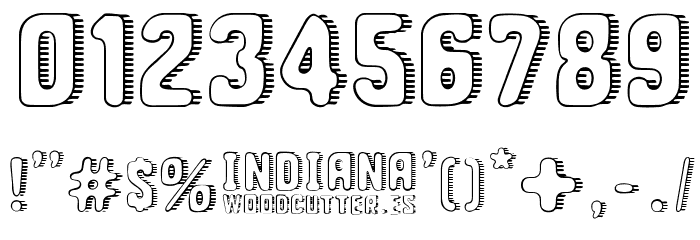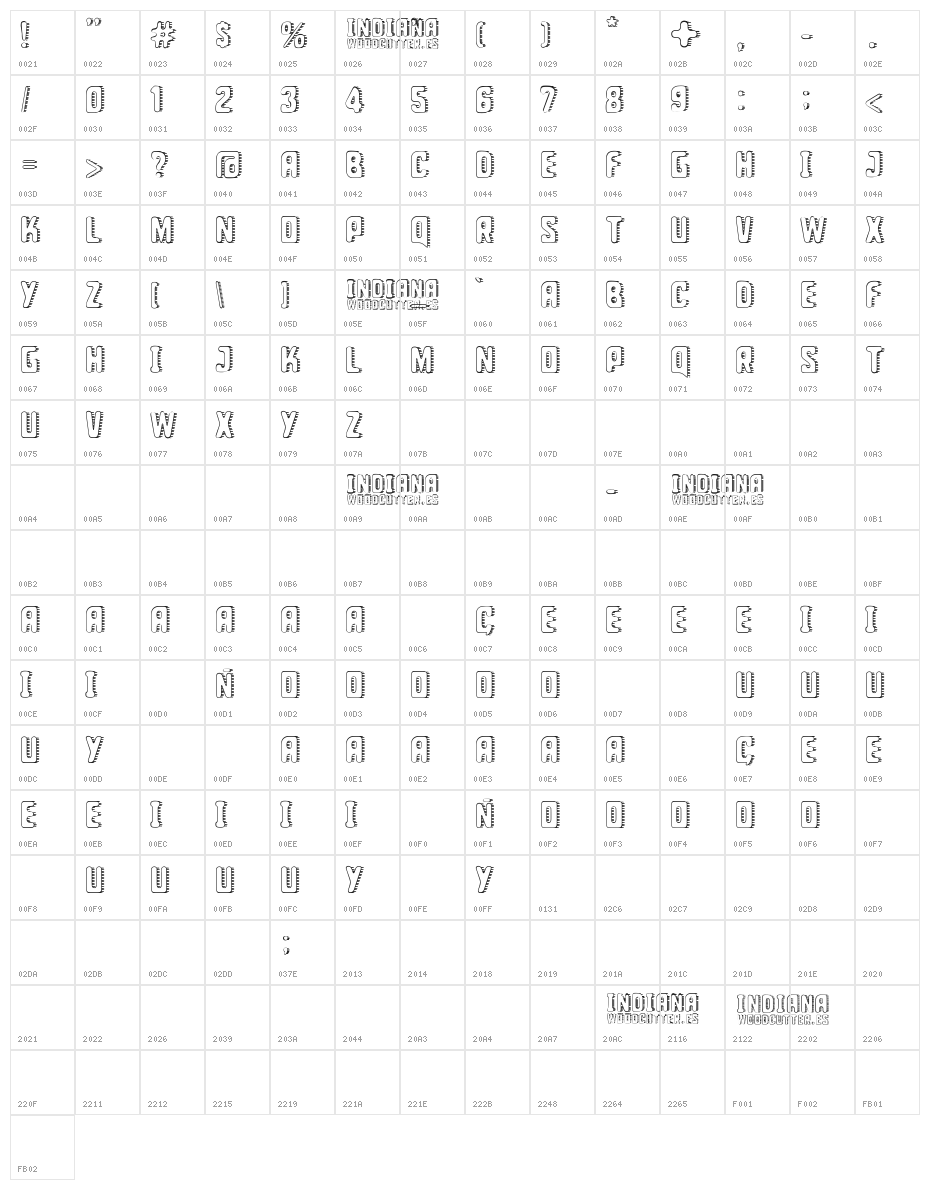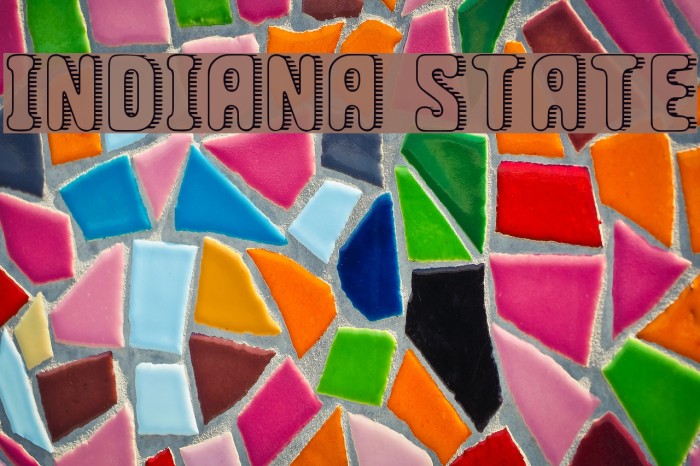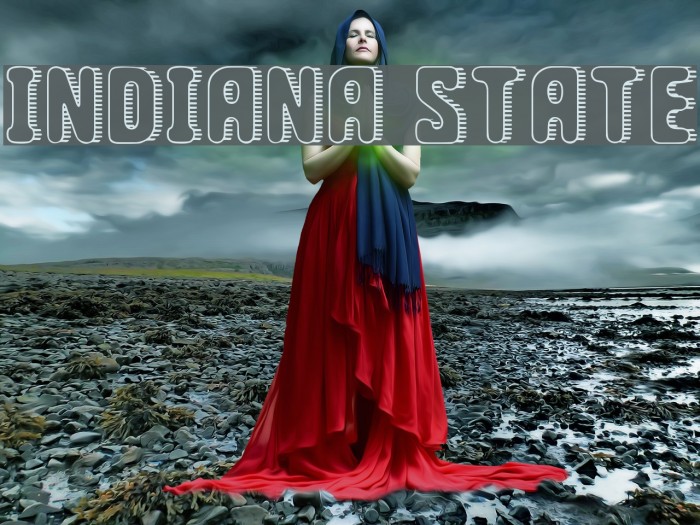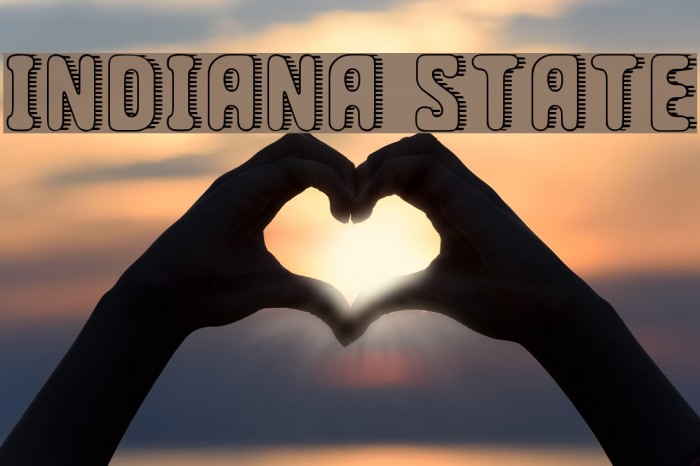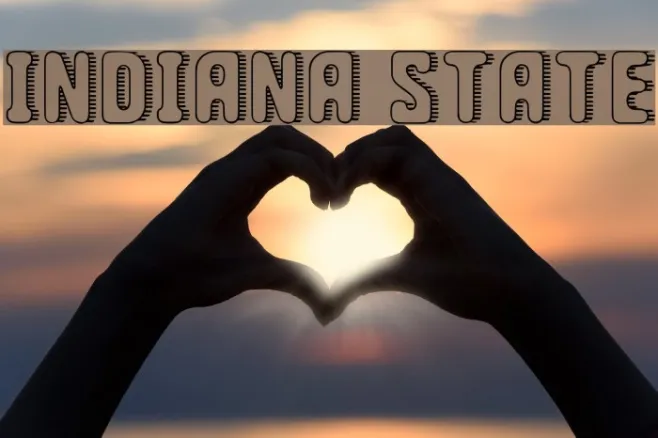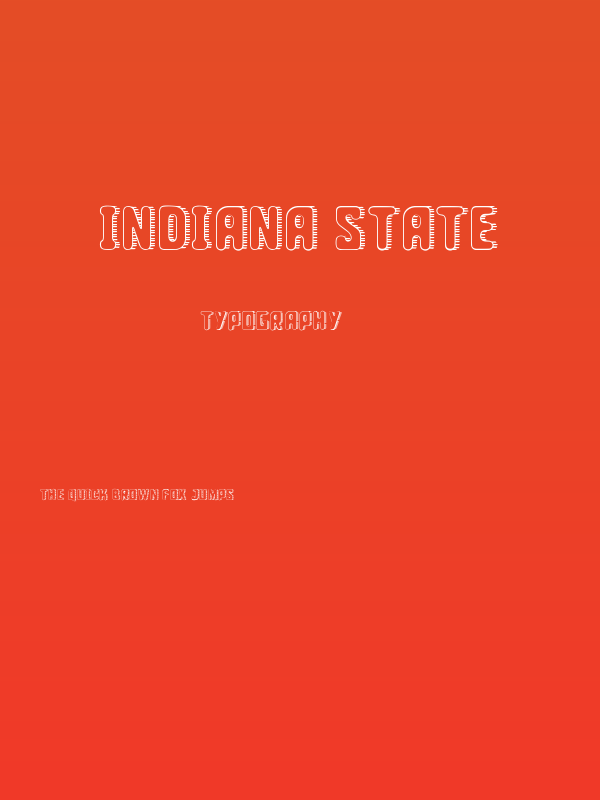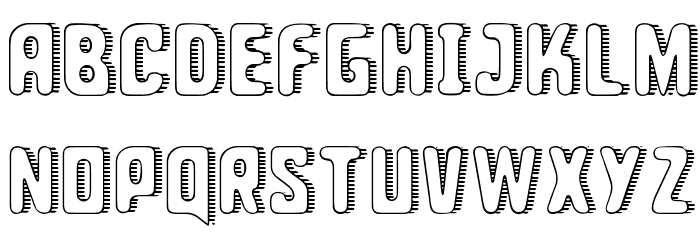
Indiana State Font
Indiana State Description
This font features a bold, decorative style with a unique 3D effect created by parallel lines running along the right side of each character. The uppercase letters are prominent and eye-catching, making them ideal for attention-grabbing headlines or titles. The numbers and special characters maintain the same stylistic elements, ensuring consistency across all text. The font's playful and dynamic appearance is enhanced by its shadow-like detailing, which adds depth and dimension. This design is well-suited for projects that require a bold and creative touch, such as posters, logos, and branding materials.